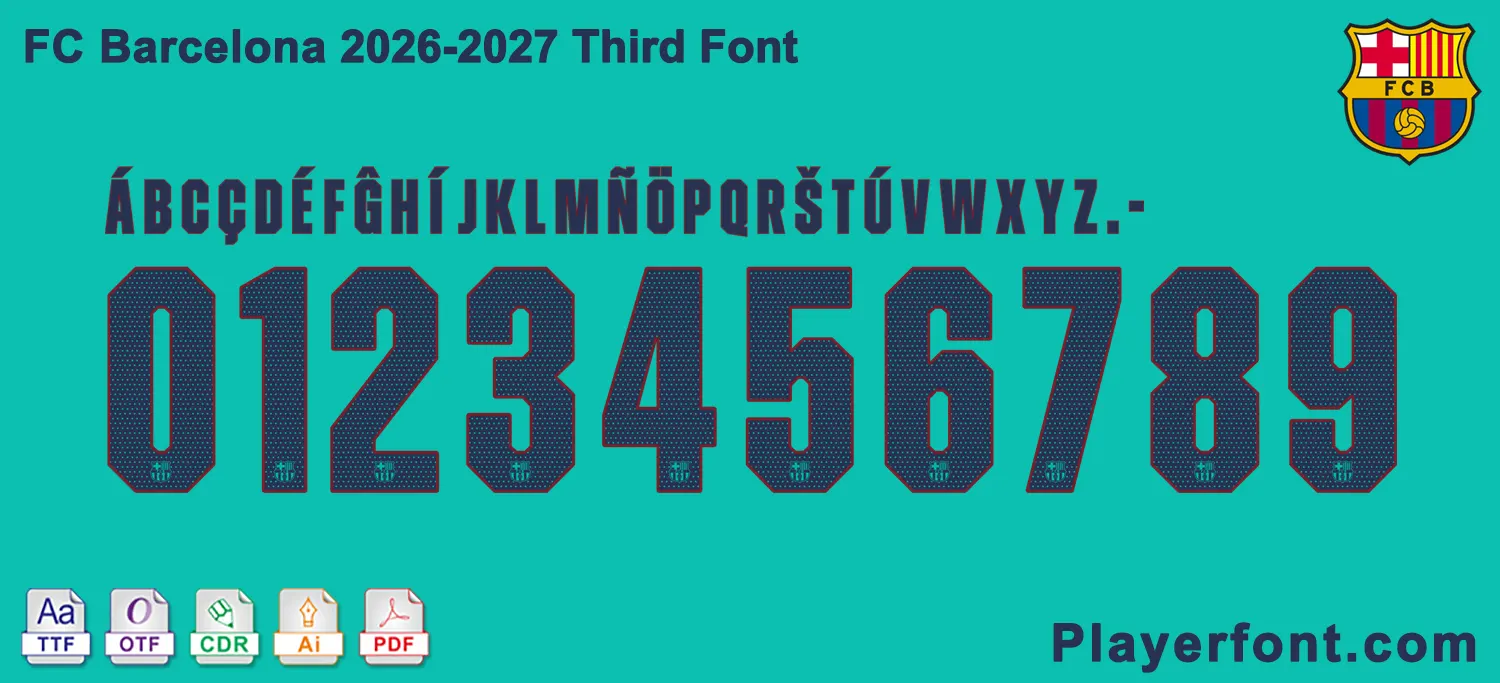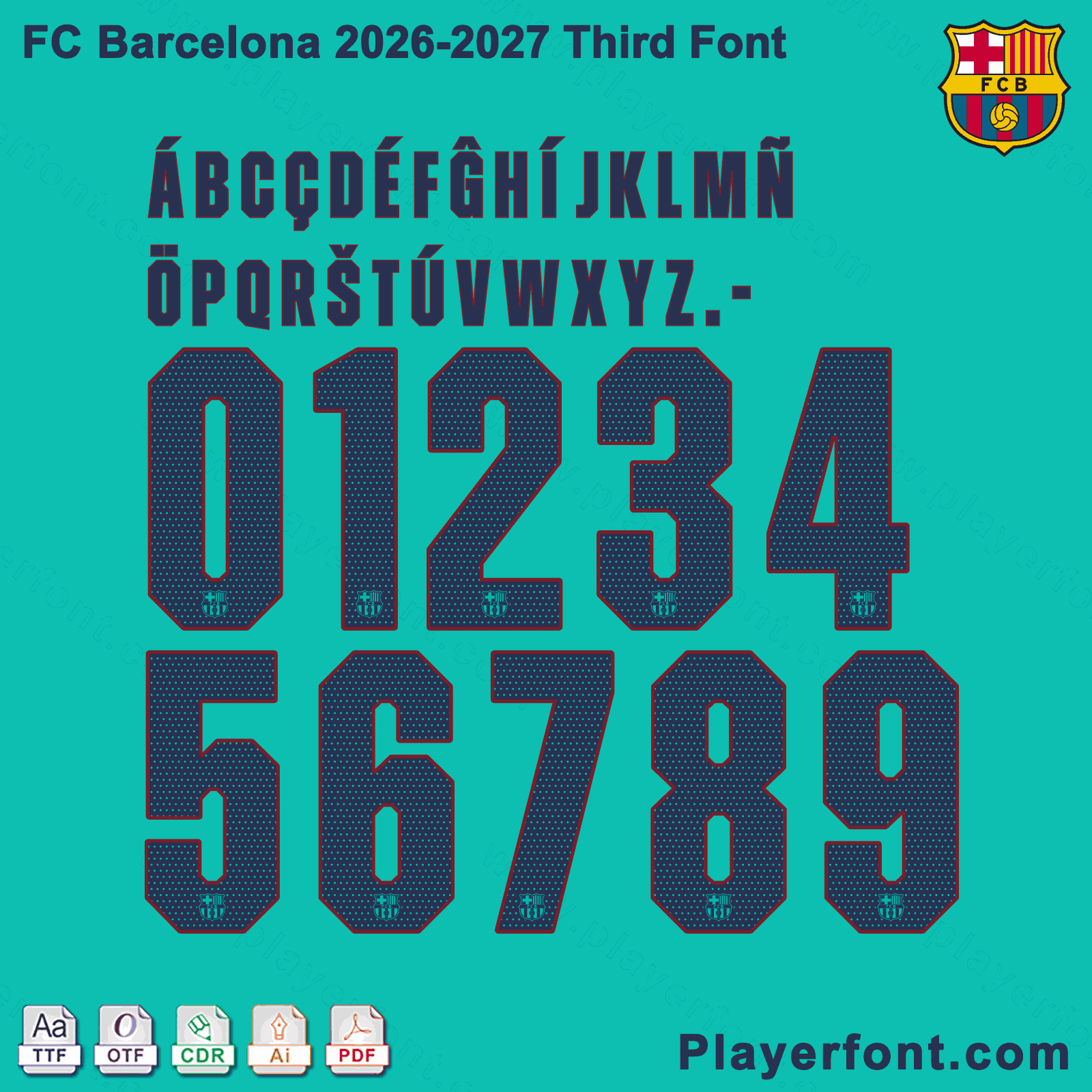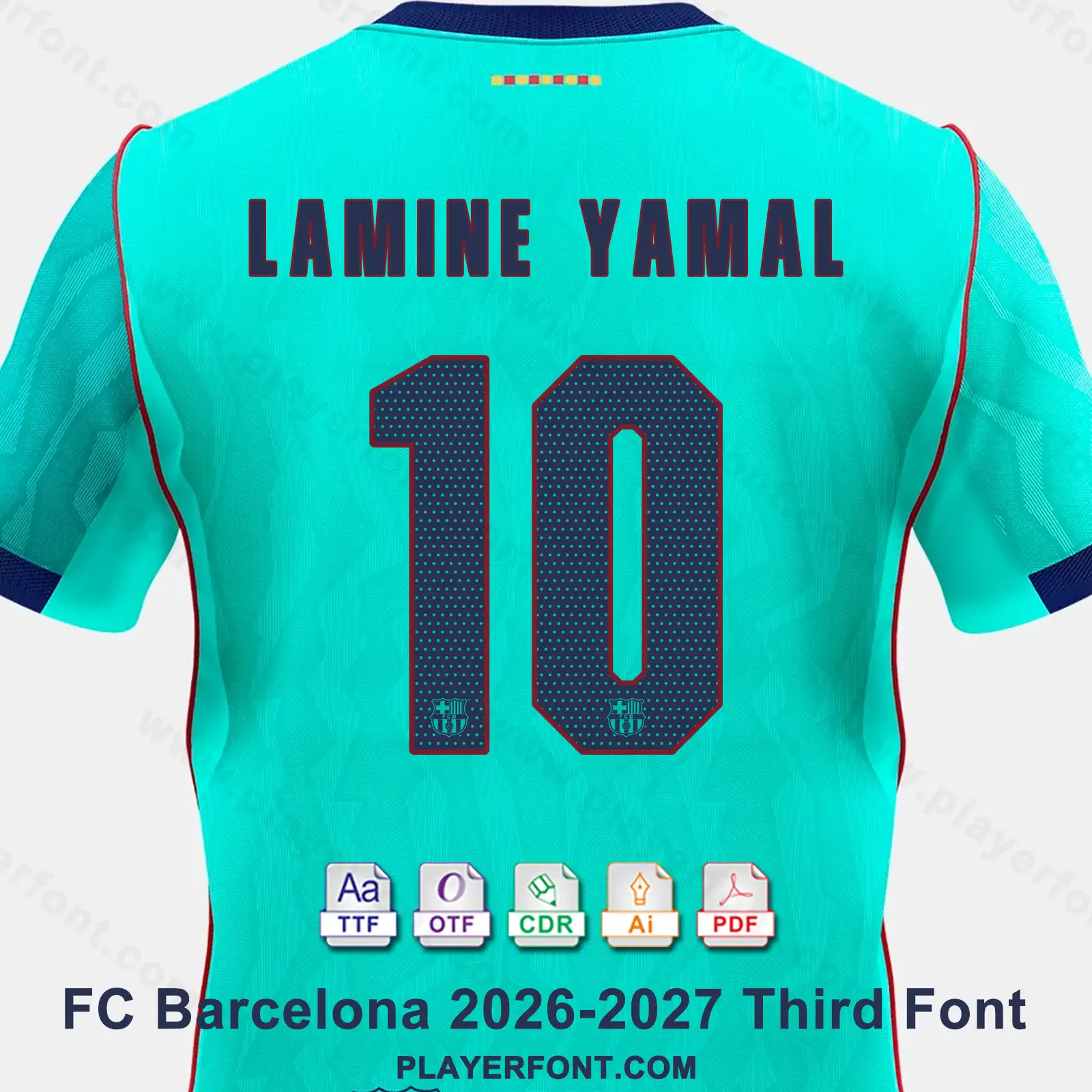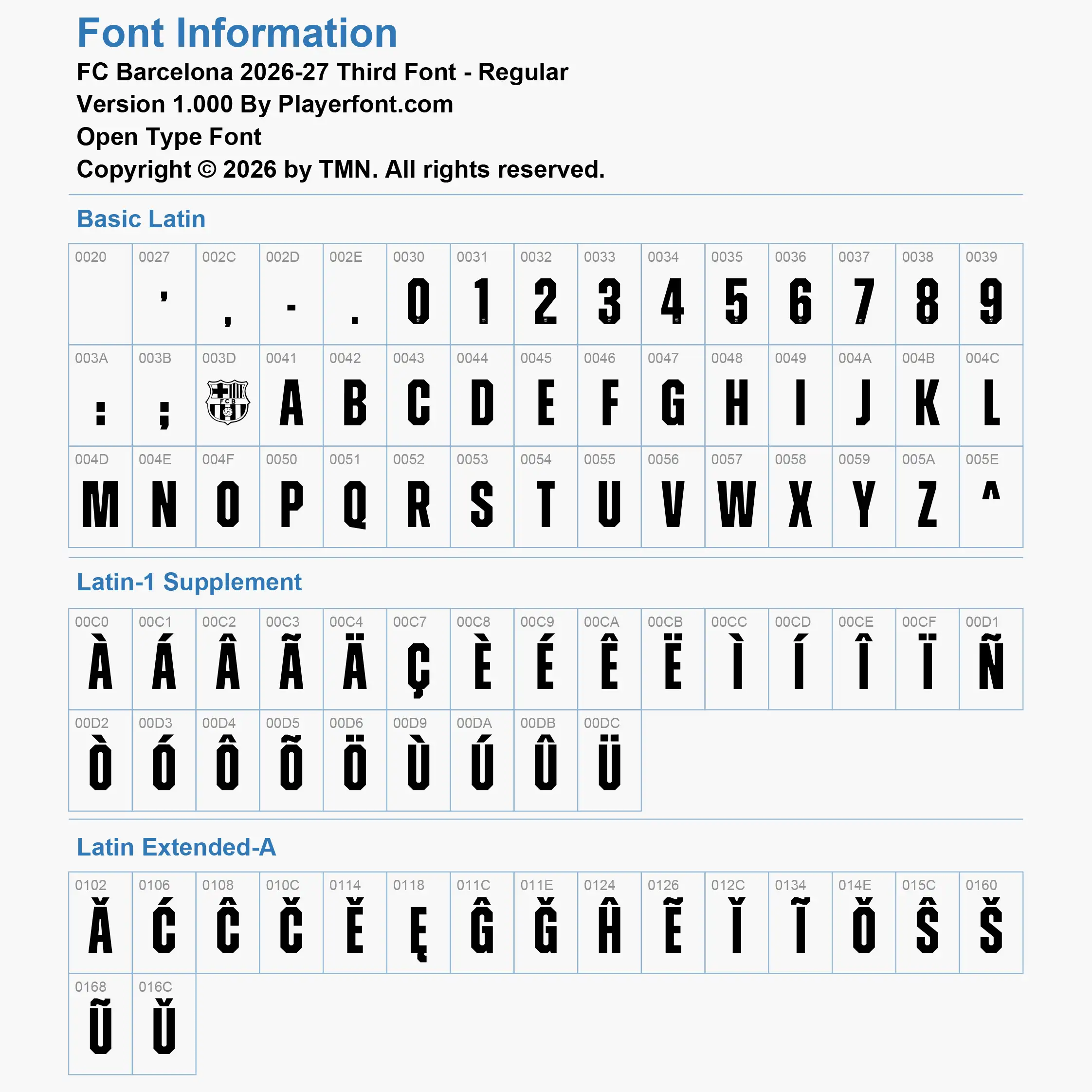
Elevate your sports jersey mockups, football custom graphics, and vector apparel printing projects with the high-quality FC Barcelona 2026-2027 Third Font Download. Masterfully engineered by Playerfont.com, this high-performance typography set replicates the official-style numbers and distinct lettering featured on the pitch for FC Barcelona’s third kit campaign.
Key Typography Features & Character List:
This typography pack is fully optimized to support international player rosters and diverse numbering layouts:
- Modern Condensed Block Layout: Contains a bold, tall condensed uppercase character set, custom geometric letters, numbers (0-9), hyphens, periods, and slashes.
- Advanced Multilingual Accent Support: Includes an expansive set of diacritics spanning Basic Latin, Latin-1 Supplement, and Latin Extended-A (such as Á, À, Â, Ã, Ä, Ç, Ć, Č, É, È, Ê, Ë, Ĝ, Í, Ì, Î, Ï, Ñ, Ó, Ò, Ô, Õ, Ö, Š, Ú, Ù, Û, Ü, and Ÿ) ensuring flawless rendering for global football stars (like Lamine Yamal) and Catalan naming requirements.
- Authentic Visual Details: The jersey numbers feature dark navy/blue angular block structures with a subtle micro-dot mesh pattern and red outline, complete with the official FC Barcelona crest outline centered at the base of each digit.
| Font Version | FC Barcelona 2026-27 Third Font – Regular (Version 1.000 By Playerfont.com) |
| Design Feature | Dark Navy Dotted Mesh Pattern with Red Outline & FCB Crest Base |